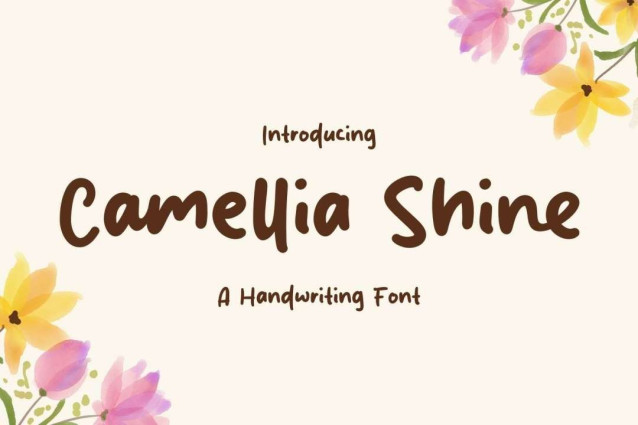
Camellia Shine Font
Camellia Shine Font is a simple and friendly handwritten font. Its natural and unique style makes it incredibly fitting to a large pool of designs. The only limit is your imagination!